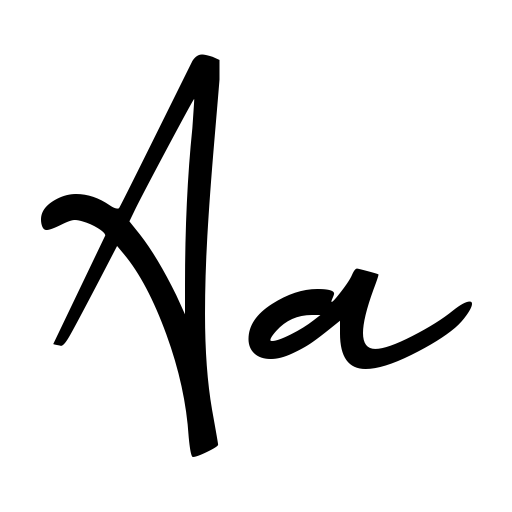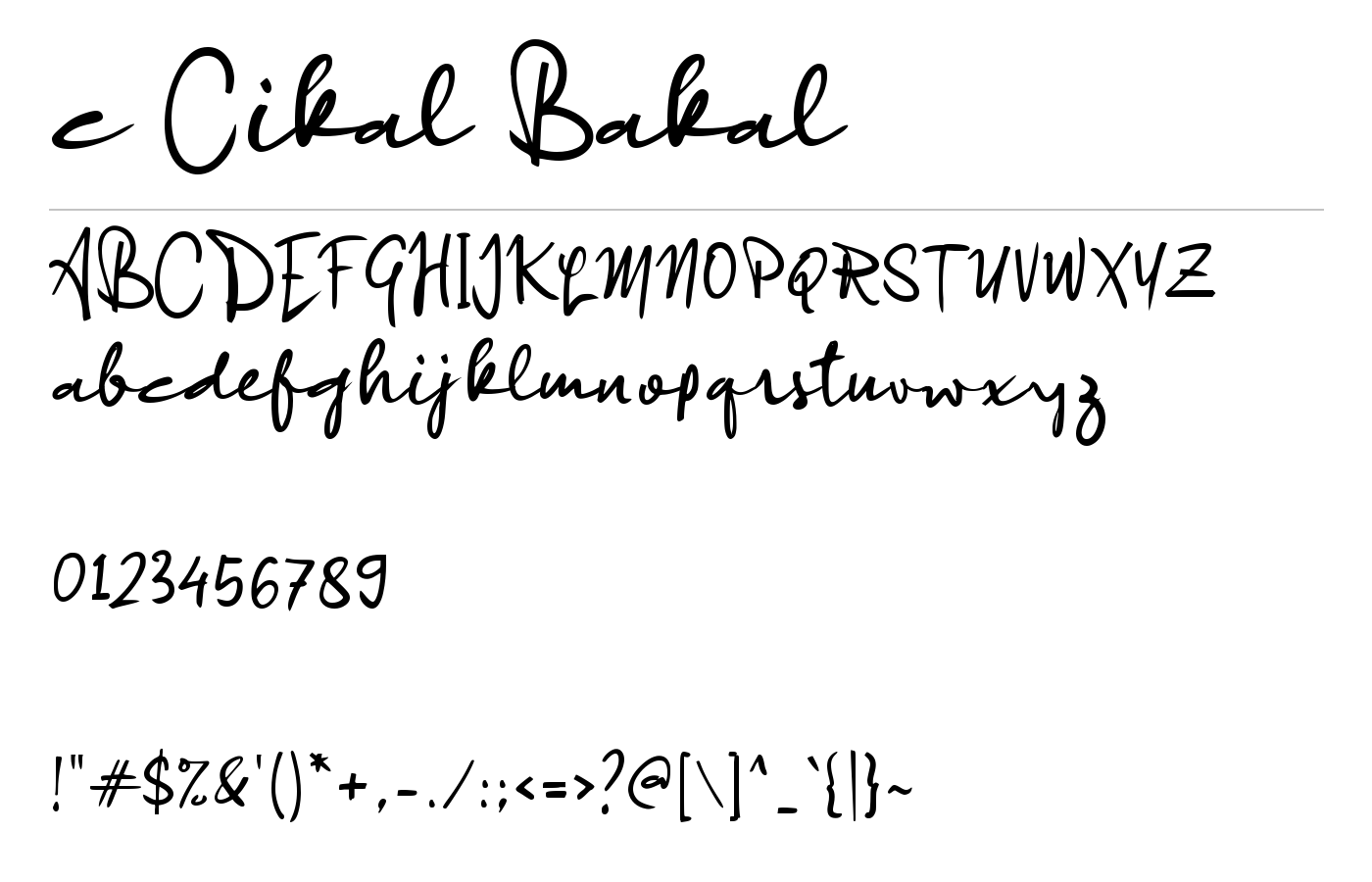
Cikal Bakal is a lively handwritten script font with a casual and playful character. Its slender strokes, irregular letterforms, and unique uppercase shapes give it a friendly, personal touch that works well for creative projects, informal branding, and eye-catching headlines. This font is perfect for adding a warm, approachable feel to invitations, logos, and social media graphics.
c Cikal Bakal Font